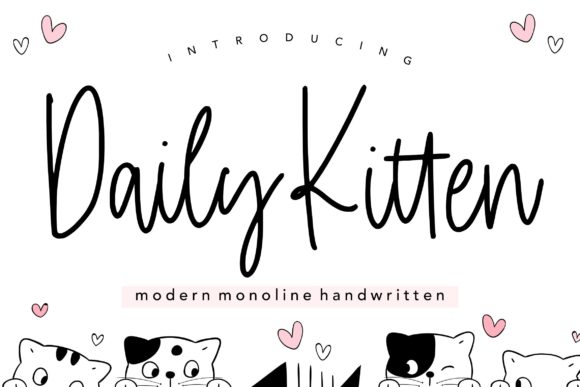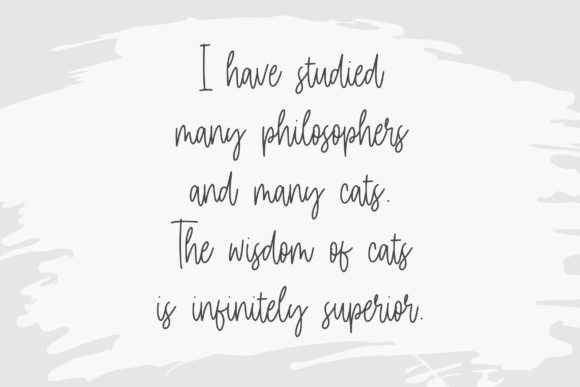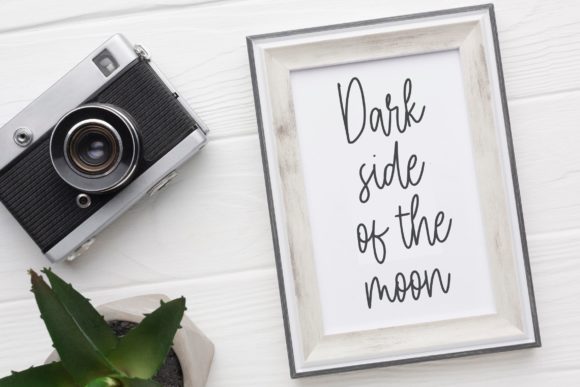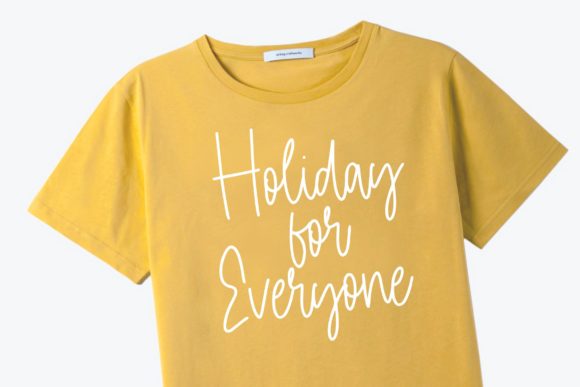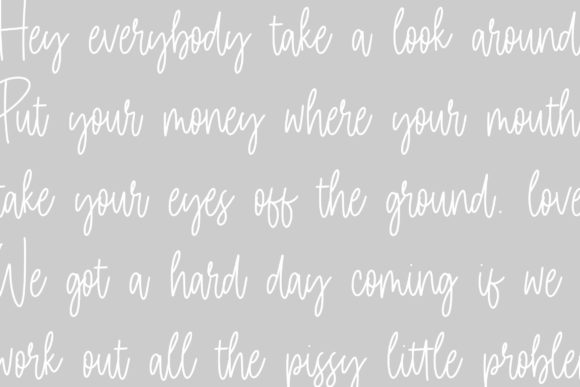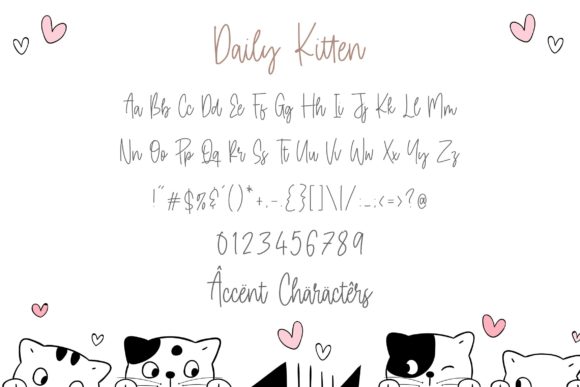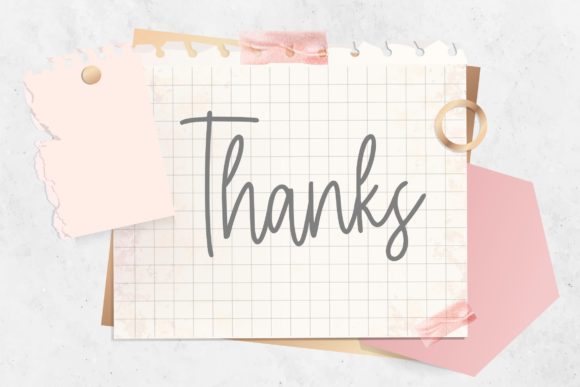
About Daily Kitten Font
Daily Kitten is a delightful and whimsical handwritten font that adds a touch of sweetness and playfulness to your designs. Here are some key features that make Daily Kitten stand out:
Sweet and Quirky: Daily Kitten’s charming and endearing style instantly adds a sense of sweetness and whimsy to any design. Its relaxed and informal letterforms create a friendly and approachable feel, making it perfect for projects that aim to evoke a warm and lighthearted atmosphere.
Versatility: Daily Kitten is incredibly versatile and can be used in a wide range of design applications. Whether you’re creating greeting cards, social media graphics, stationary, or anything in between, Daily Kitten’s quirky charm adapts well to various contexts.
Handcrafted Appeal: Daily Kitten retains an authentic handcrafted feel, giving your designs a personal touch that resonates with viewers. Its irregular shapes and playful variations mimic the imperfections of real handwriting, adding a sense of genuineness and character to your creations.
Relaxed and Casual: The relaxed and casual style of Daily Kitten makes it a perfect choice for projects that aim to convey a laid-back and carefree vibe. Its informal letterforms create a sense of ease and informality, making it ideal for designs that want to feel approachable and nonchalant.
Attention-Grabbing: Despite its playful and whimsical nature, Daily Kitten is still attention-grabbing and can be used effectively in headlines or titles. Its unique style makes your text stand out, drawing the viewer’s eye to your message.
Playful Ornaments: Daily Kitten may also include adorable kitten-related ornaments, adding a touch of cuteness and fun to your designs. These playful elements can be used to embellish your artwork and make it even more captivating.
Daily Inspiration: As the name suggests, Daily Kitten is perfect for designs that seek to inspire and uplift. It’s an excellent choice for motivational quotes, positive affirmations, or any content that aims to spread joy and positivity.
Incorporating Daily Kitten into your design projects will infuse them with a sense of joy, playfulness, and genuine charm. Whether you’re working on designs for children, pet-related content, or anything that needs a touch of whimsy, Daily Kitten is a font that will make your creations truly adorable and heartwarming.